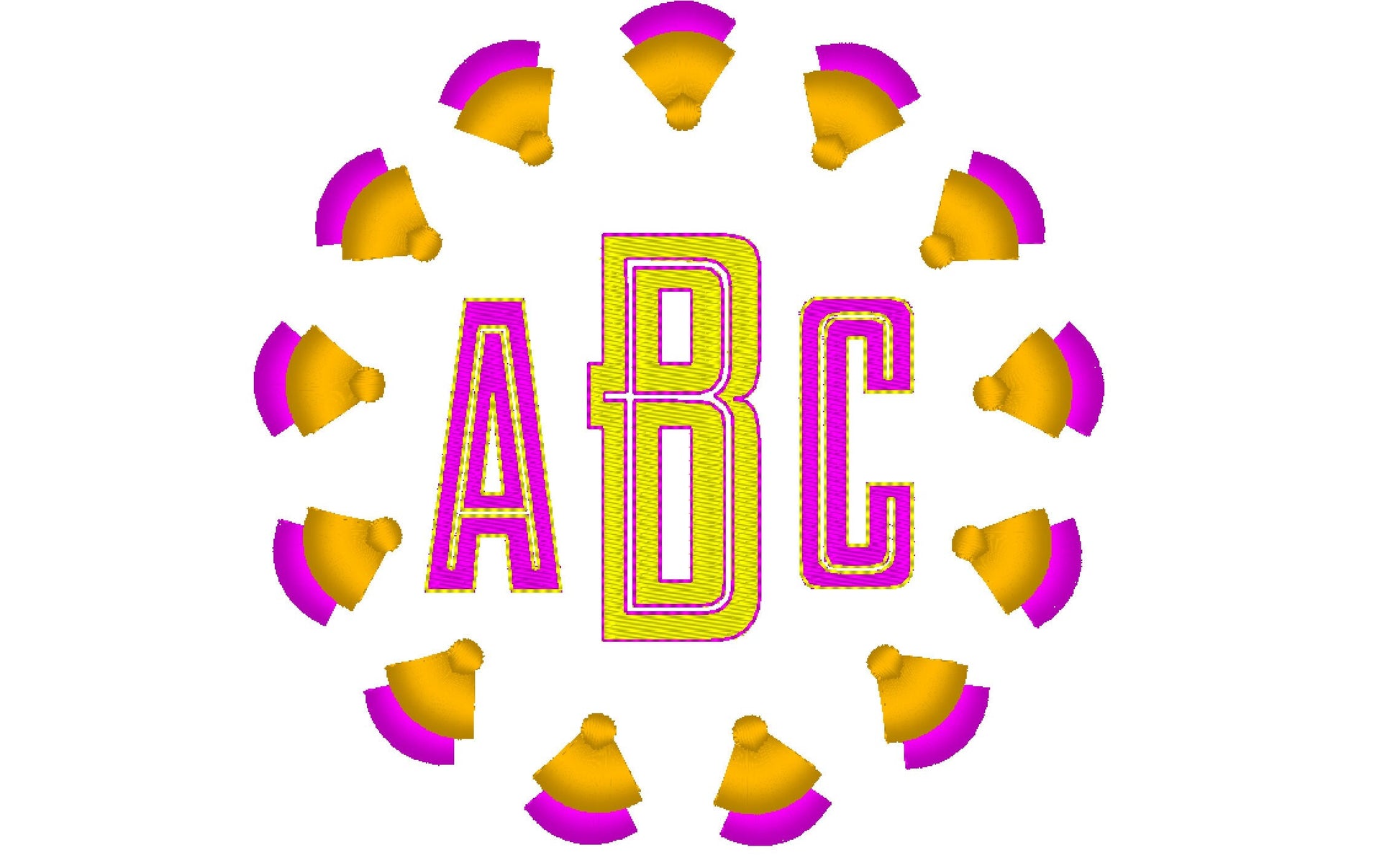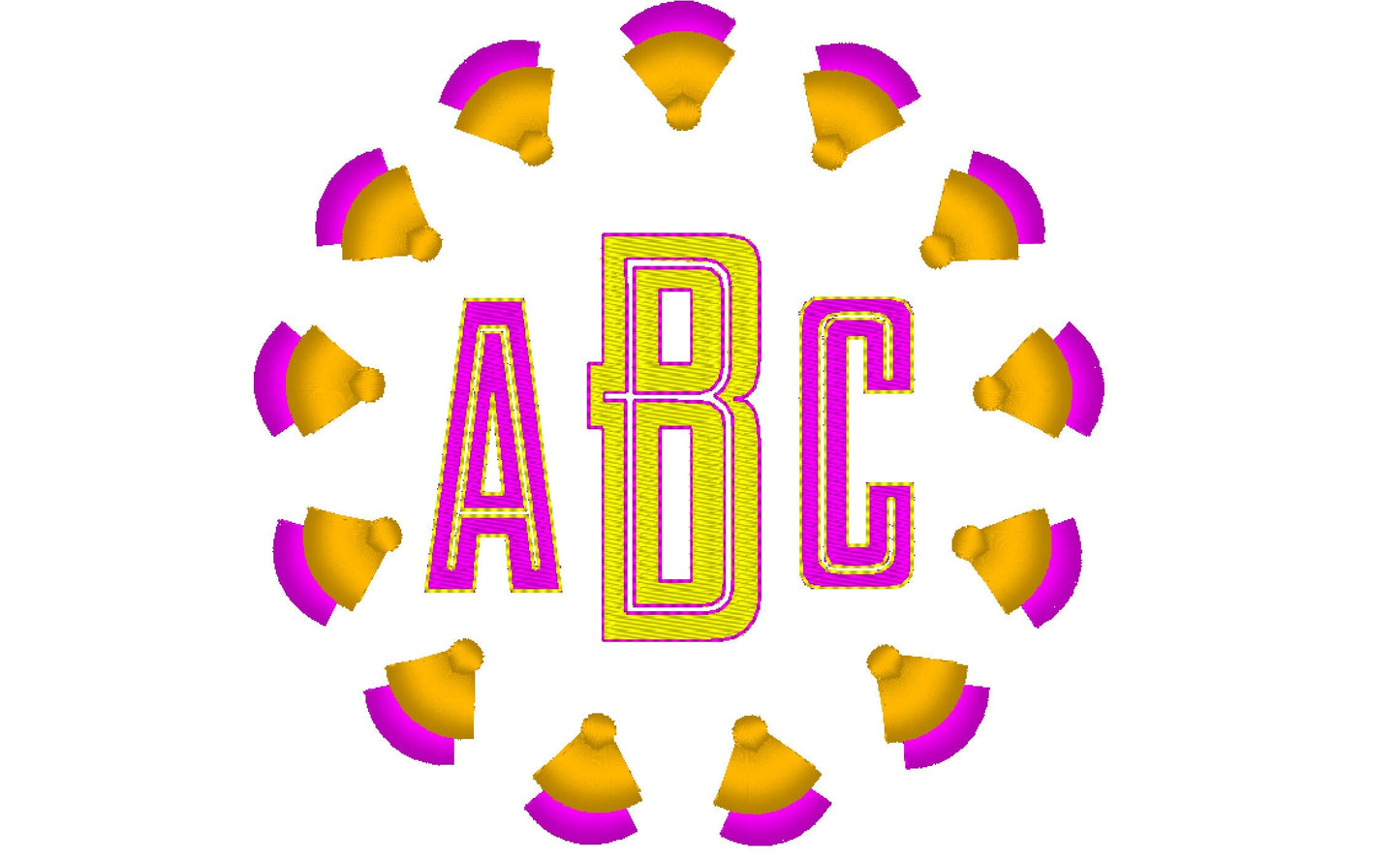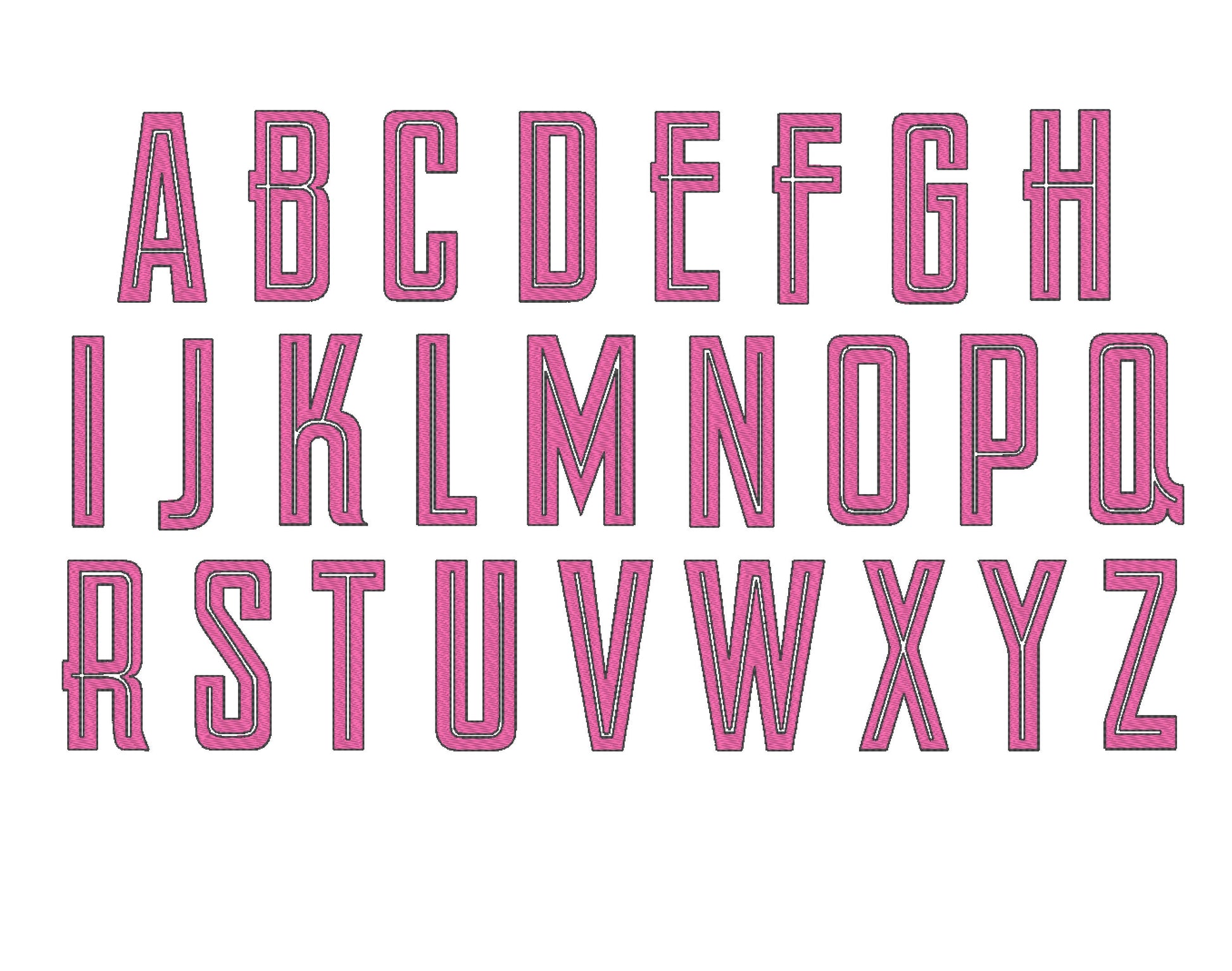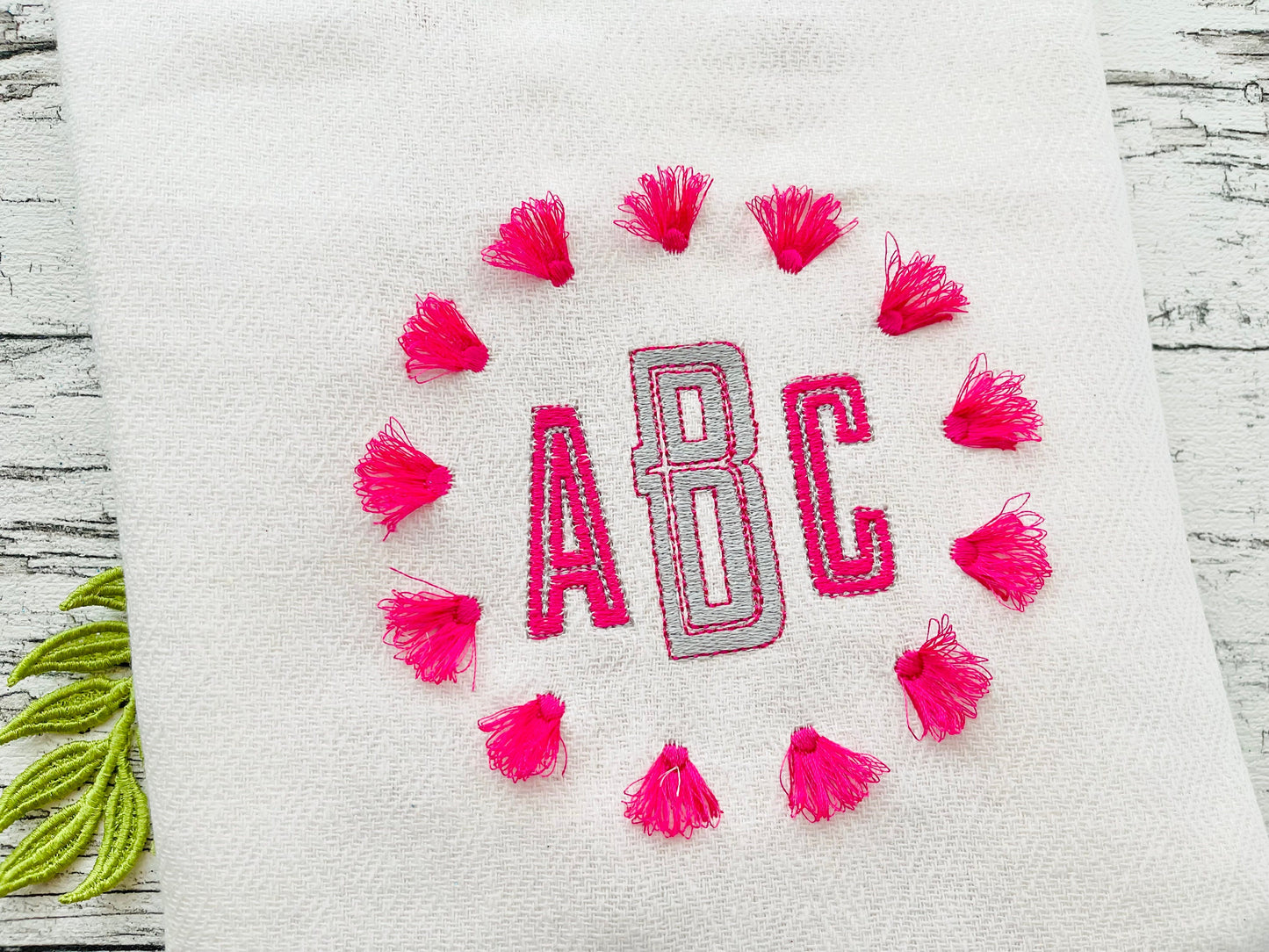
Or click to open the linkA chinoiserie circle frame with fringed tassels and a matching two-color monogram alphabet. Pretty for pillows, towels, tote bags and gifts.
Two frames: single tassels in 3, 4, 4.5 and 5 inches, and double tassels in 3.5, 4, 4.5 and 5 inches. The fill stitch alphabet, letters A to Z with an outline in a second color, comes in 1.5, 1.7, 2, 2.5, 3 and 3.5 inches. The fringe is cut from the back and stays safe to wash.